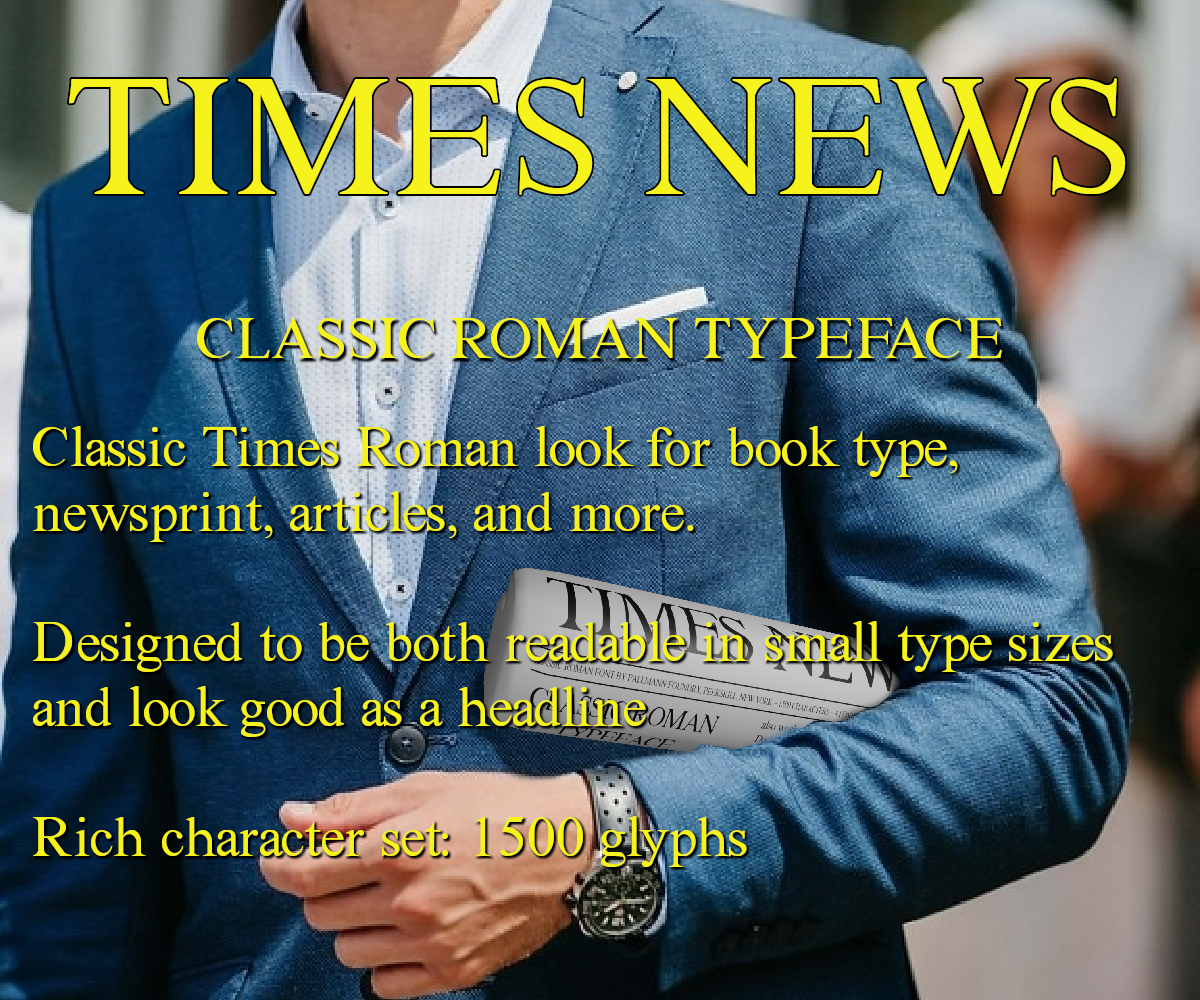
This week's font is Times News. A classic Times Roman look for book type, newsprint, articles, and more! Designed to be readable in small types sizes and look good as a headline.Free for personal use. Get it here: pallmannfoundry.blogspot.com/2…